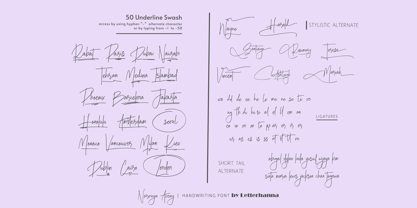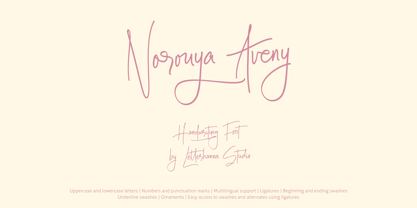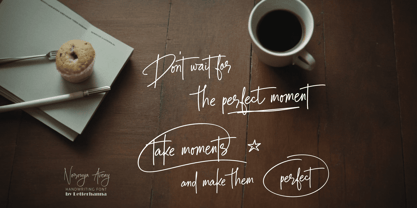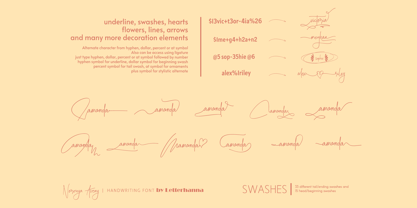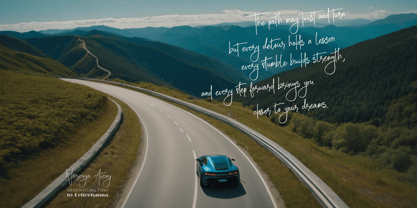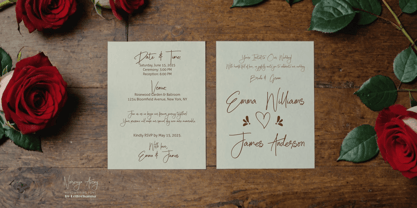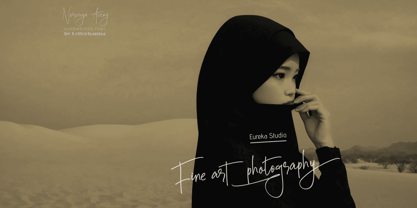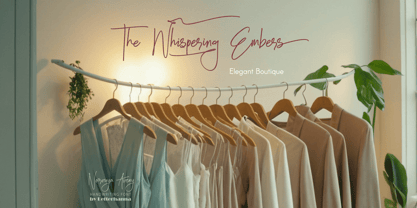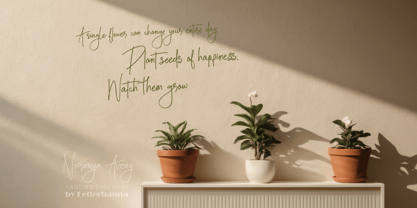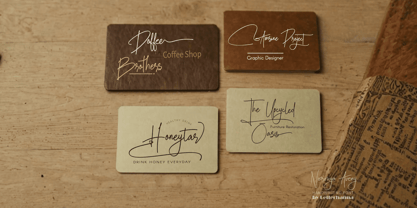
Norouya Aveny
by Letterhanna Studio
The Norouya Aveny Font Family was designed by Rinaldo Hasibuan and published by Letterhanna Studio. Norouya Aveny contains 1 styles. More about this family
Introducing Norouya Aveny – a charming new script font that brings elegance and personality to every letter you type. With its graceful handwritten strokes, this font is designed to give your work a custom, crafted feel — perfect for branding, invitations, packaging, social media, and anything that needs a stylish personal touch.
💫 What makes Norouya Aveny truly shine is its rich set of stylistic alternates, fluid swashes, and unique ligatures that let you mix and match for endless creative combinations. Whether you’re designing a wedding logo or a bold Instagram post, Norouya Aveny will make every word look effortlessly beautiful. Try it now and give your designs the glow they deserve!
Easy Access to Glyphs and Swashes
Accessing Swashes and Ornaments
• Underline Swashes: Use a hyphen symbol “-” followed by a number between 1 and 50. For example, type “-3”, “-22”, or “-17” to get various underline swashes.
• Head/Beginning Swashes: Use a dollar sign “$” followed by a number between 1 and 15. For example, type “$2” or “$8” to get different head/beginning swashes.
• Tail/Ending Swashes: Use a percent sign “%” followed by a number between 1 and 33. For example, type “%3” or “%15” to get various tail/ending swashes.
• Ornaments: Use an “at” symbol “@” followed by a number between 1 and 21. For example, type “@4” or “@13” to get different ornament.
PUA Encoding for Ease of Use, which means you can access all the glyphs and swashes with ease!
Font Features
• Uppercase and lowercase letters
• Numbers and punctuation marks
• Multilingual support
• Ligatures
• Beginning and ending swashes
• Underline swashes
• Ornaments
• Easy access to swashes using ligatures